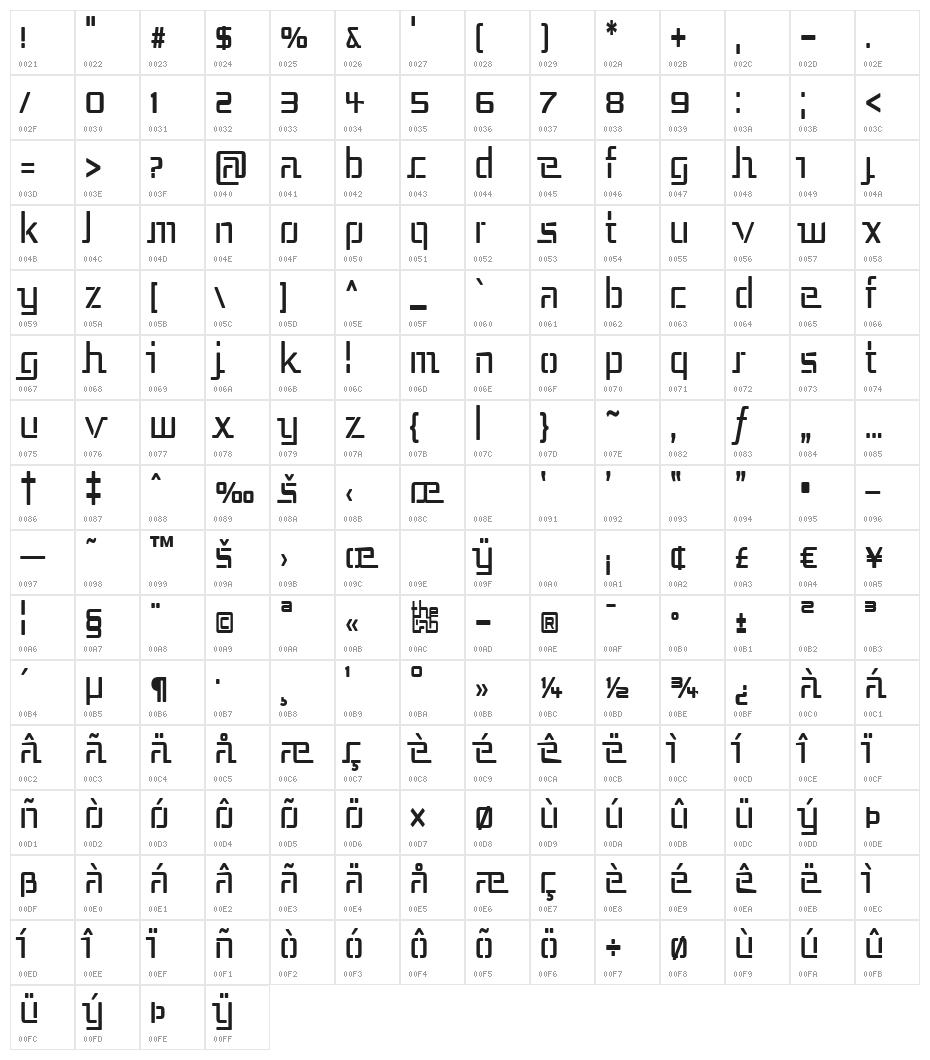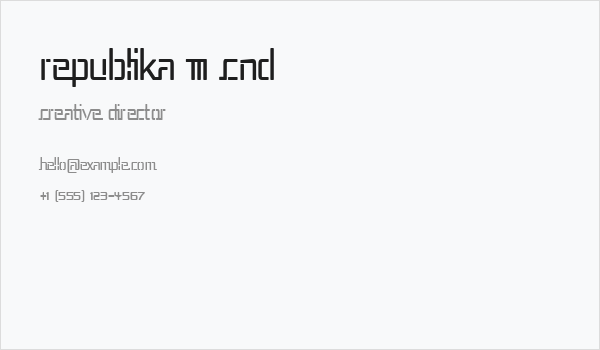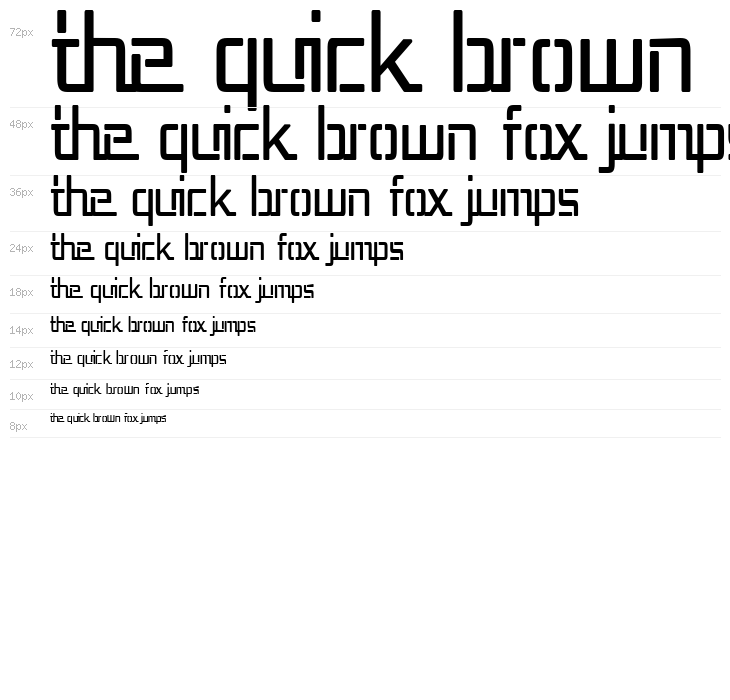
Republika III Cnd Font
Republika III Cnd Description
This font features a modern, geometric design with a condensed structure. The characters are composed of bold, straight lines and sharp angles, giving it a futuristic and technical appearance. The uppercase and lowercase letters maintain a consistent height, contributing to its uniformity. The numerals and special characters follow the same design principles, ensuring cohesion across all glyphs. Its distinct style makes it suitable for projects that require a contemporary and edgy look.
| Proposed Projects | Ideal for technology branding, futuristic posters, and digital interfaces. |